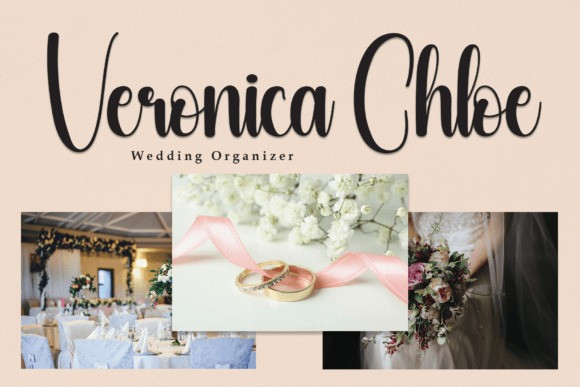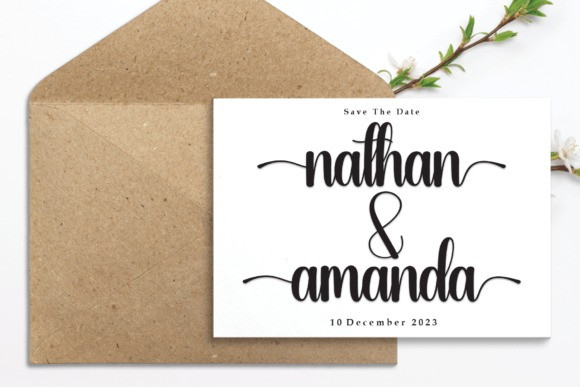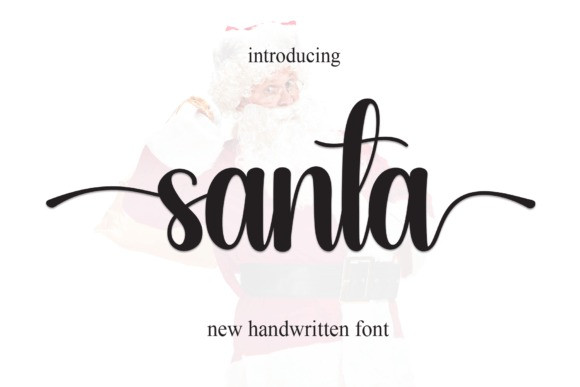
Santa Script Type is a friendly and approachable script that brings a touch of warmth to your text. With its simple and easy-to-read style, it adds a personal feel to any project. Perfect for festive messages, invitations, or anything that needs a hint of handcrafted charm. Embrace the casual elegance of Santa for a delightful and down-to-earth vibe in your designs.